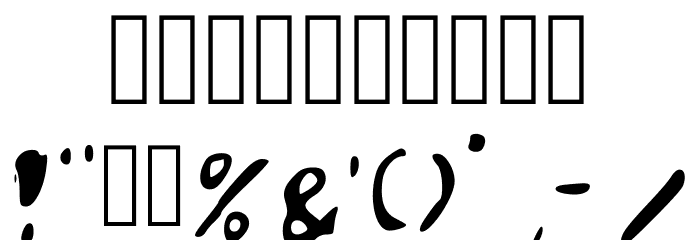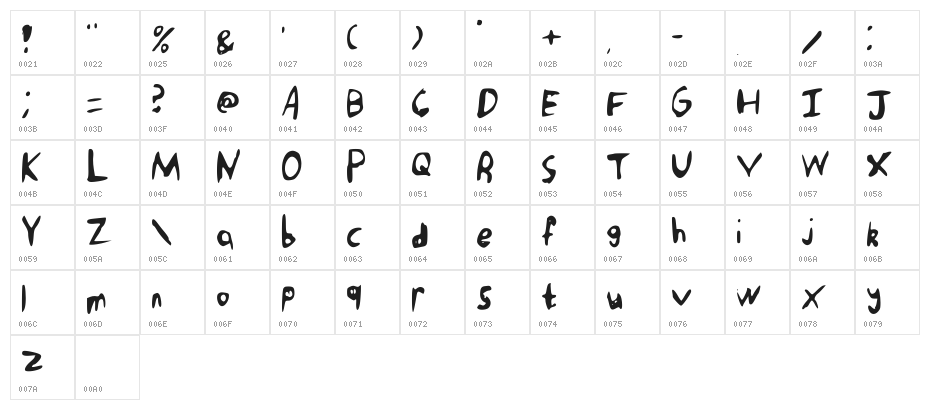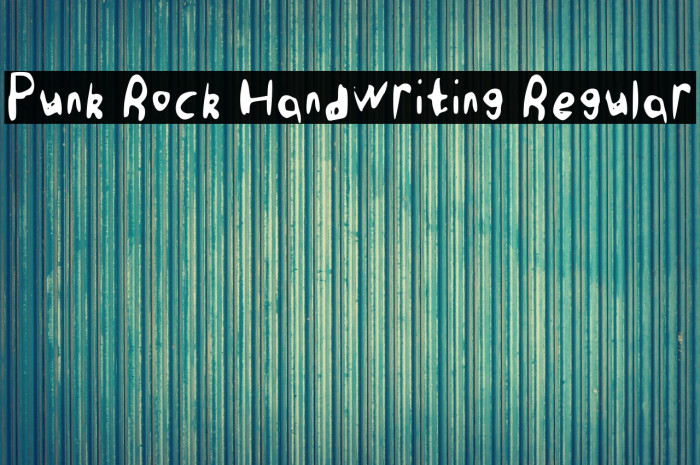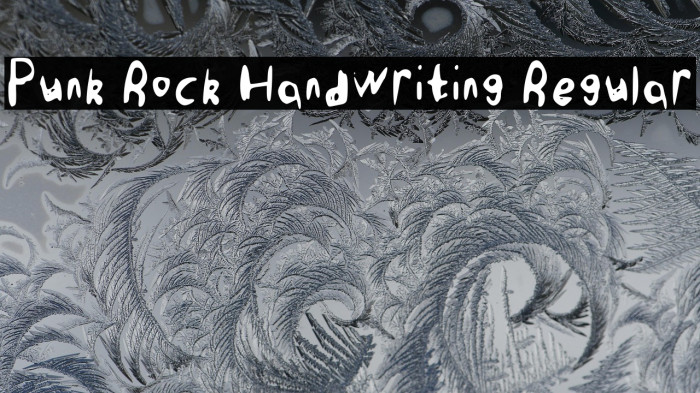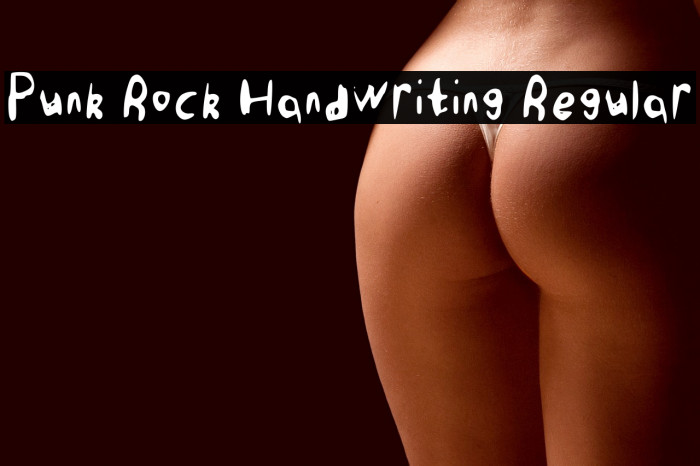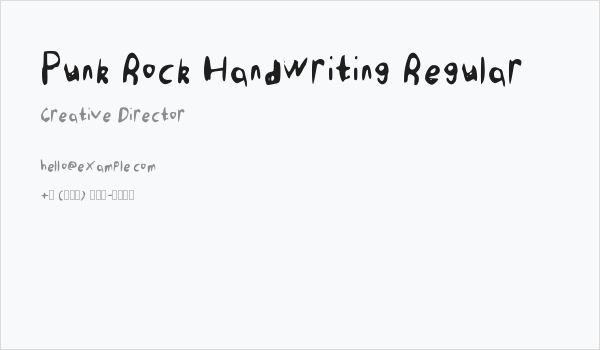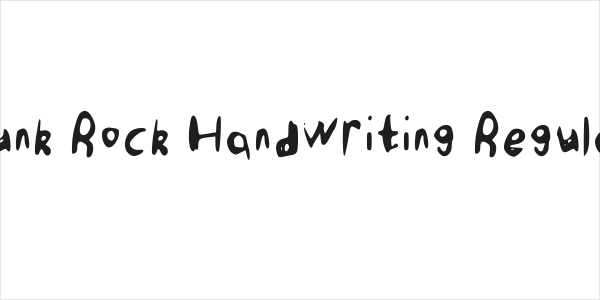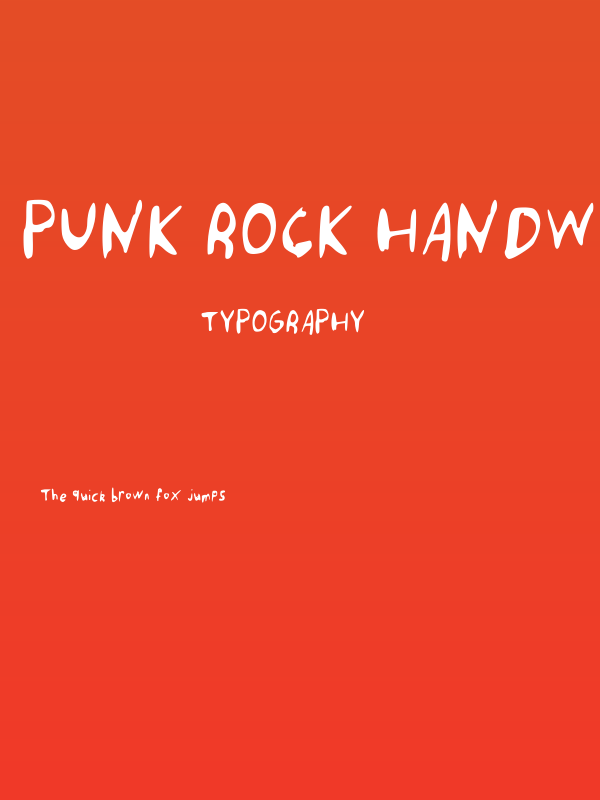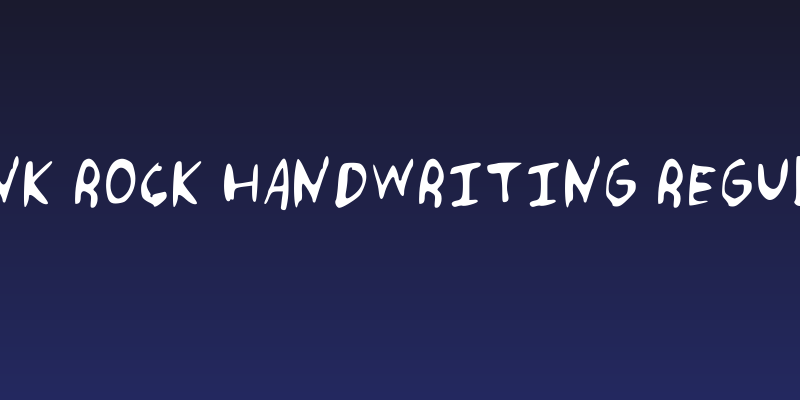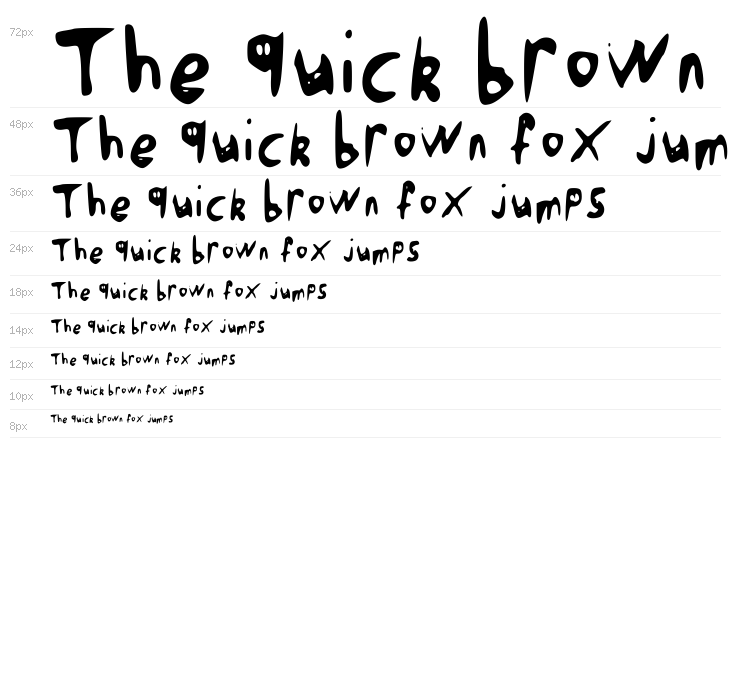
Punk Rock Handwriting Regular Font
Punk Rock Handwriting Regular Description
This font exudes a rebellious and energetic vibe, reminiscent of punk rock aesthetics. The letters are irregular and bold, with a hand-drawn appearance that gives them a raw, edgy feel. The uppercase and lowercase letters maintain a consistent style, with exaggerated curves and angles that add to the font's dynamic nature. The numbers and special characters follow the same design principles, ensuring a cohesive look across all elements. This font is perfect for projects that require a touch of individuality and a break from traditional, polished typography.
| Proposed Projects | Ideal for music album covers, band posters, edgy branding, and alternative fashion labels. |